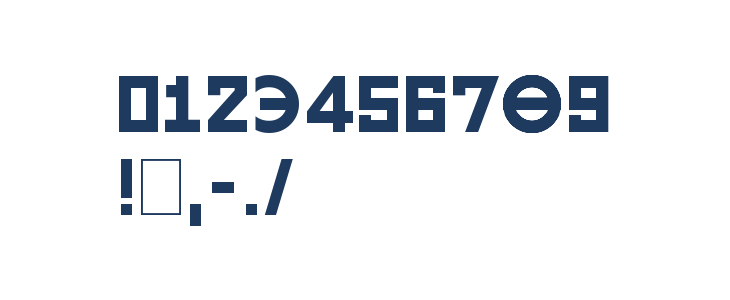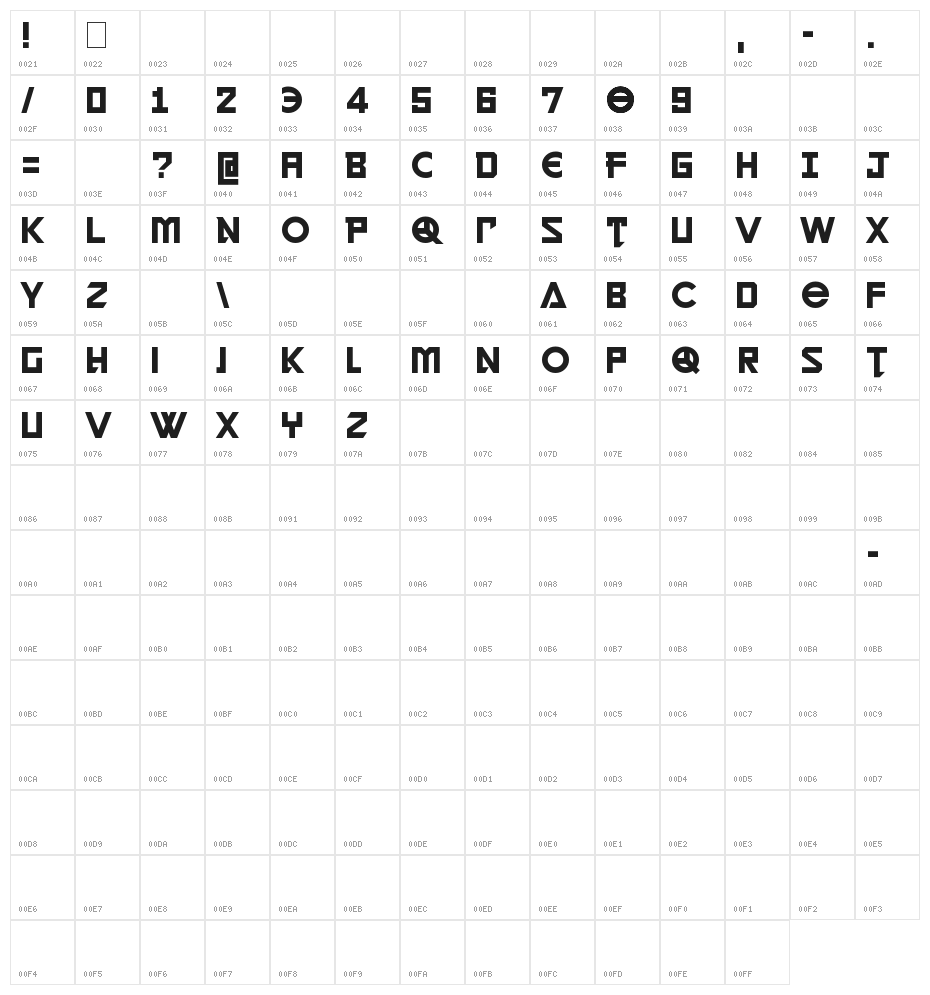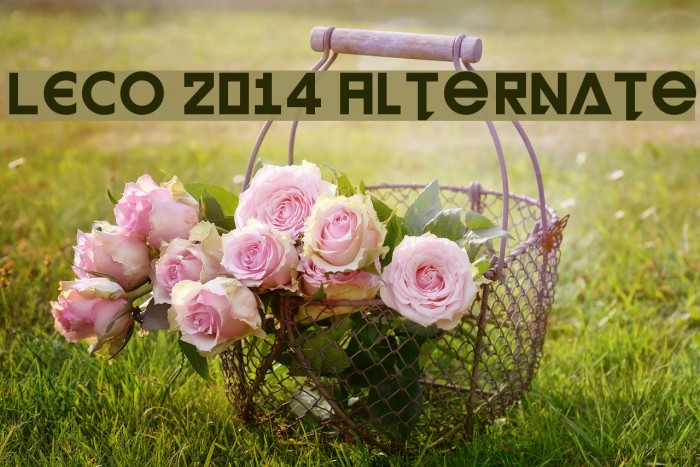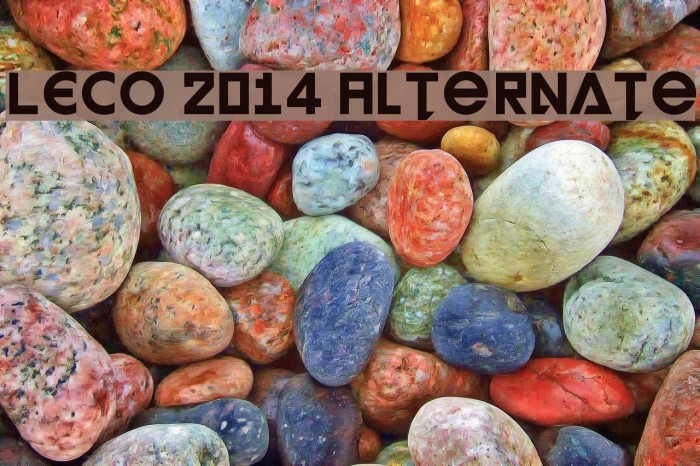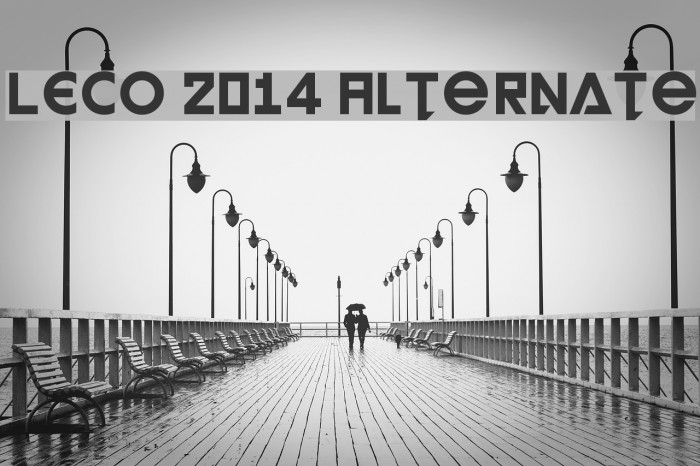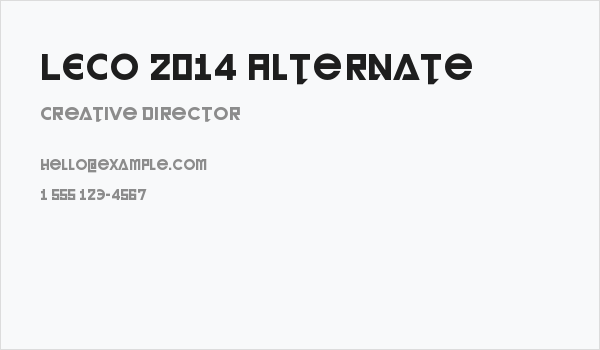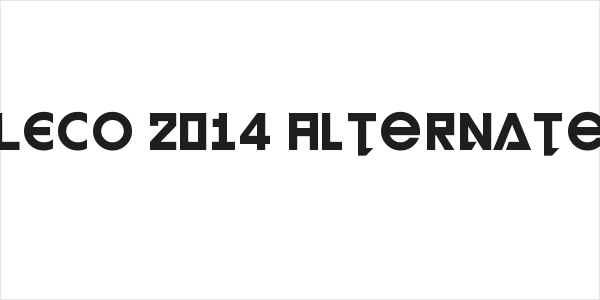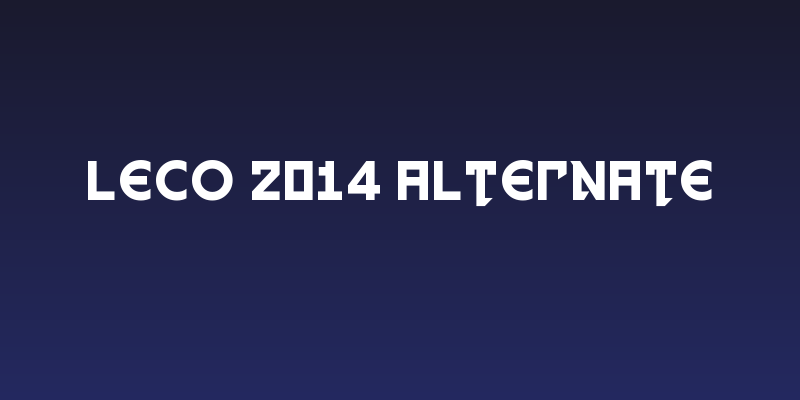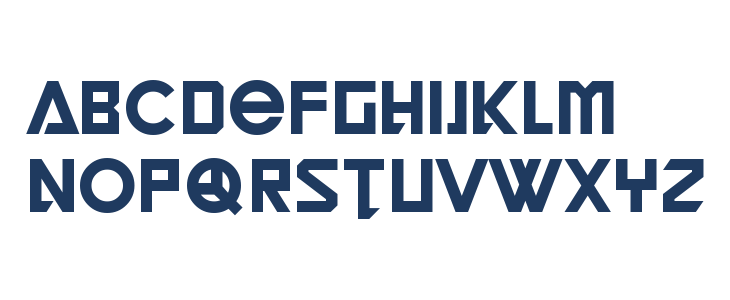
LECO 2014 Alternate Font
LECO 2014 Alternate Description
This font features a bold, geometric design with a modern and futuristic aesthetic. The characters are constructed with sharp angles and straight lines, giving it a distinct and edgy appearance. The uppercase letters are uniform in height, with unique stylized elements such as slashes and cutouts that add to its contemporary feel. The numerals follow a similar design philosophy, maintaining consistency across the character set. Special characters are also included, matching the overall style with their angular and bold forms. This font is ideal for projects that require a strong visual impact and a modern look.
| Proposed Projects | Ideal for branding, logos, posters, and any design project that requires a modern and impactful typeface. |